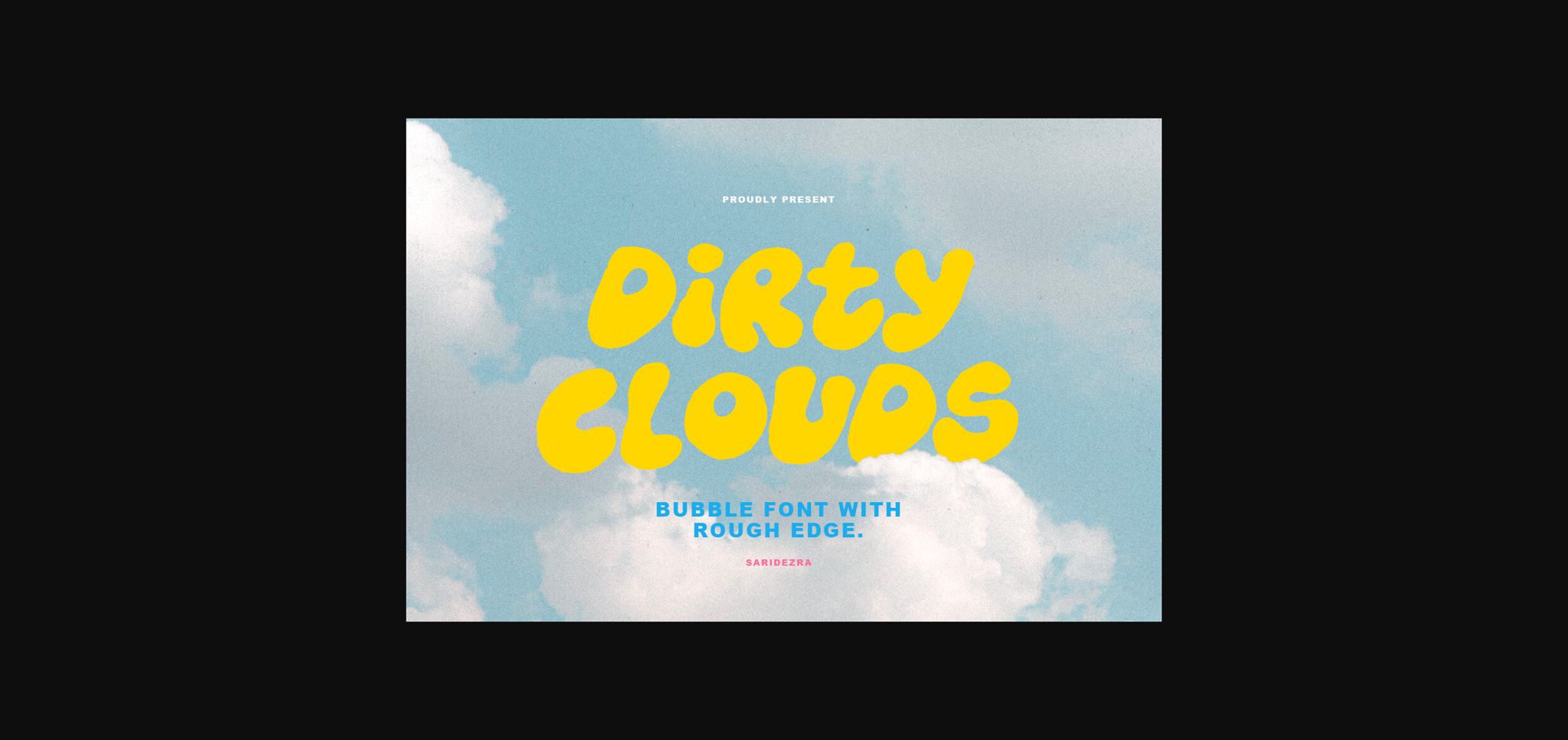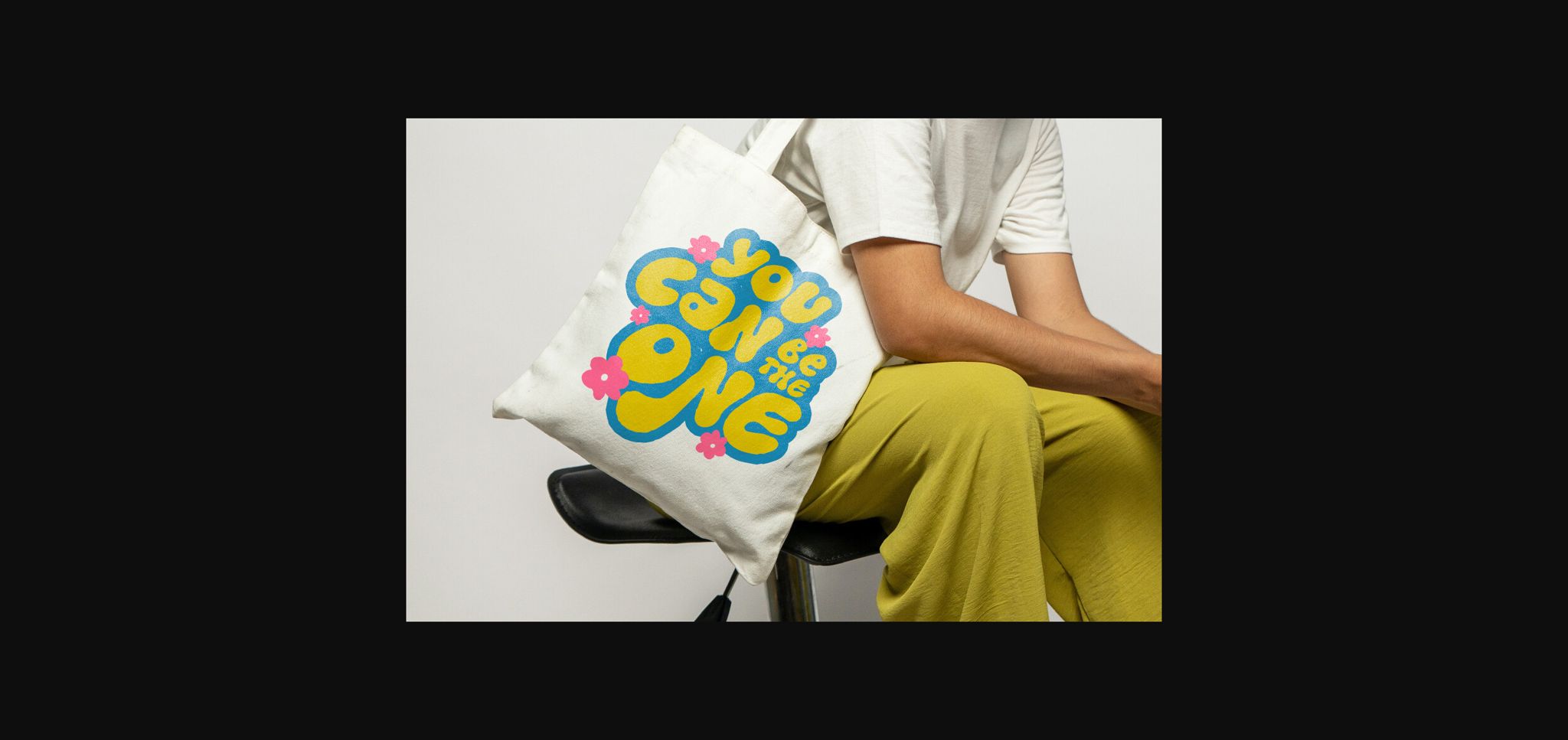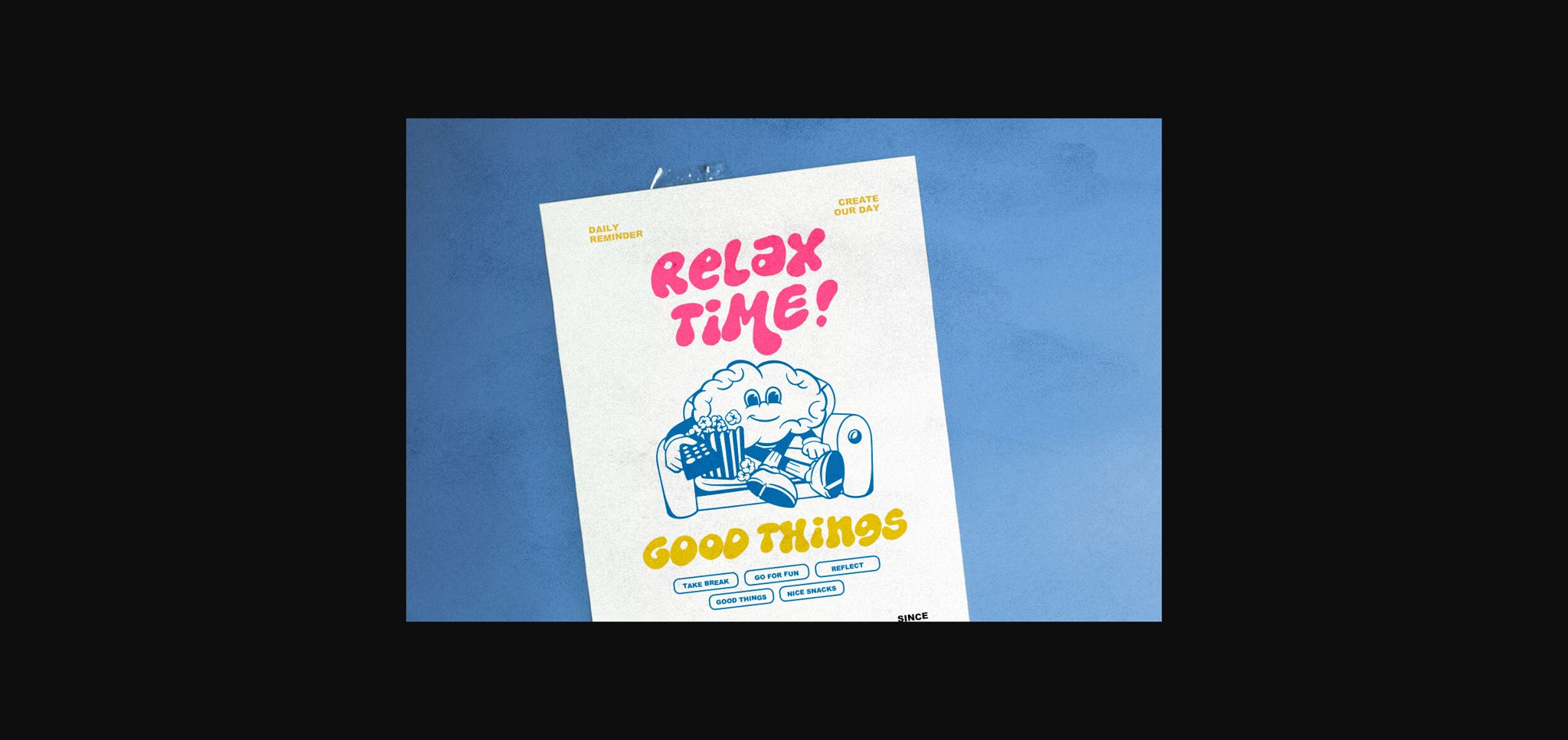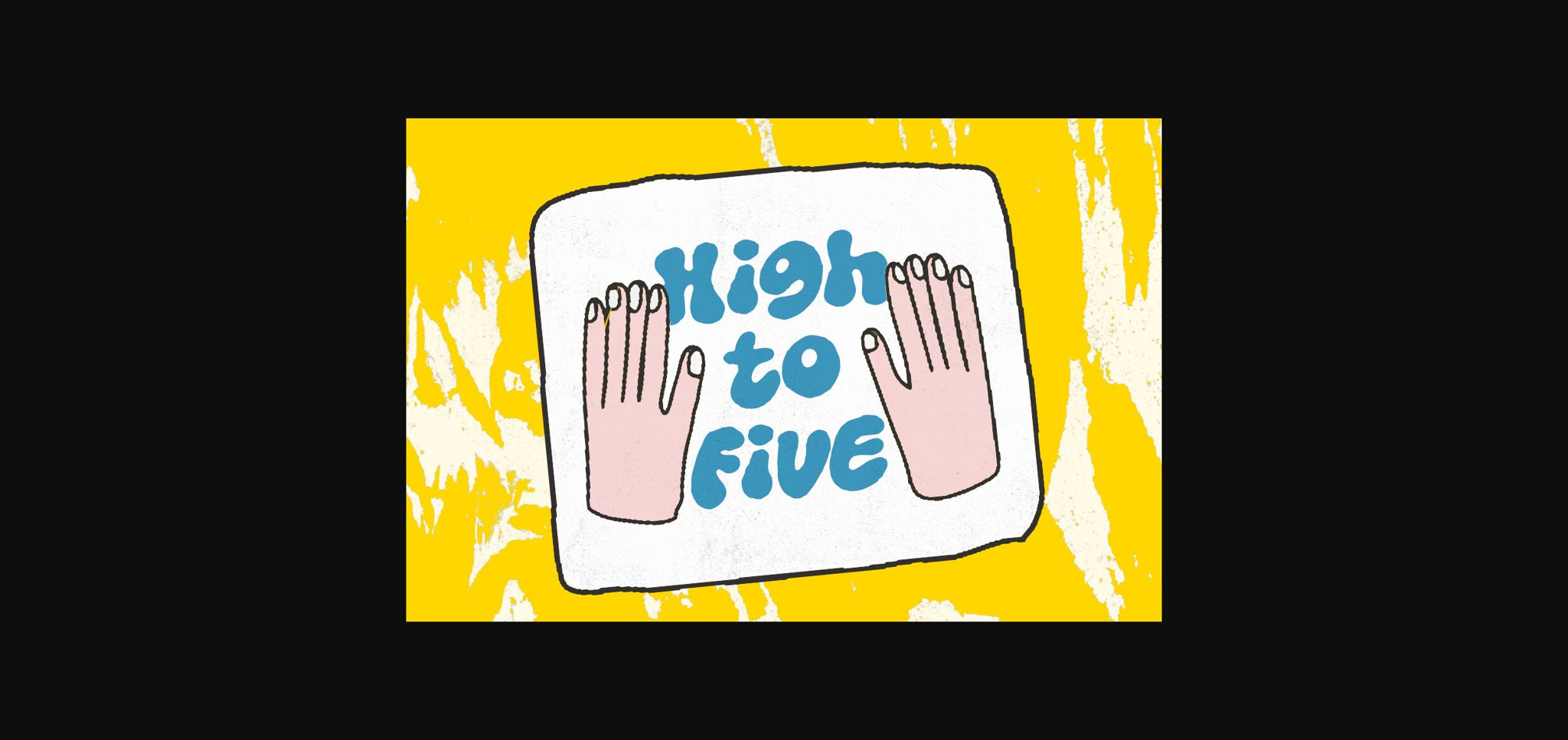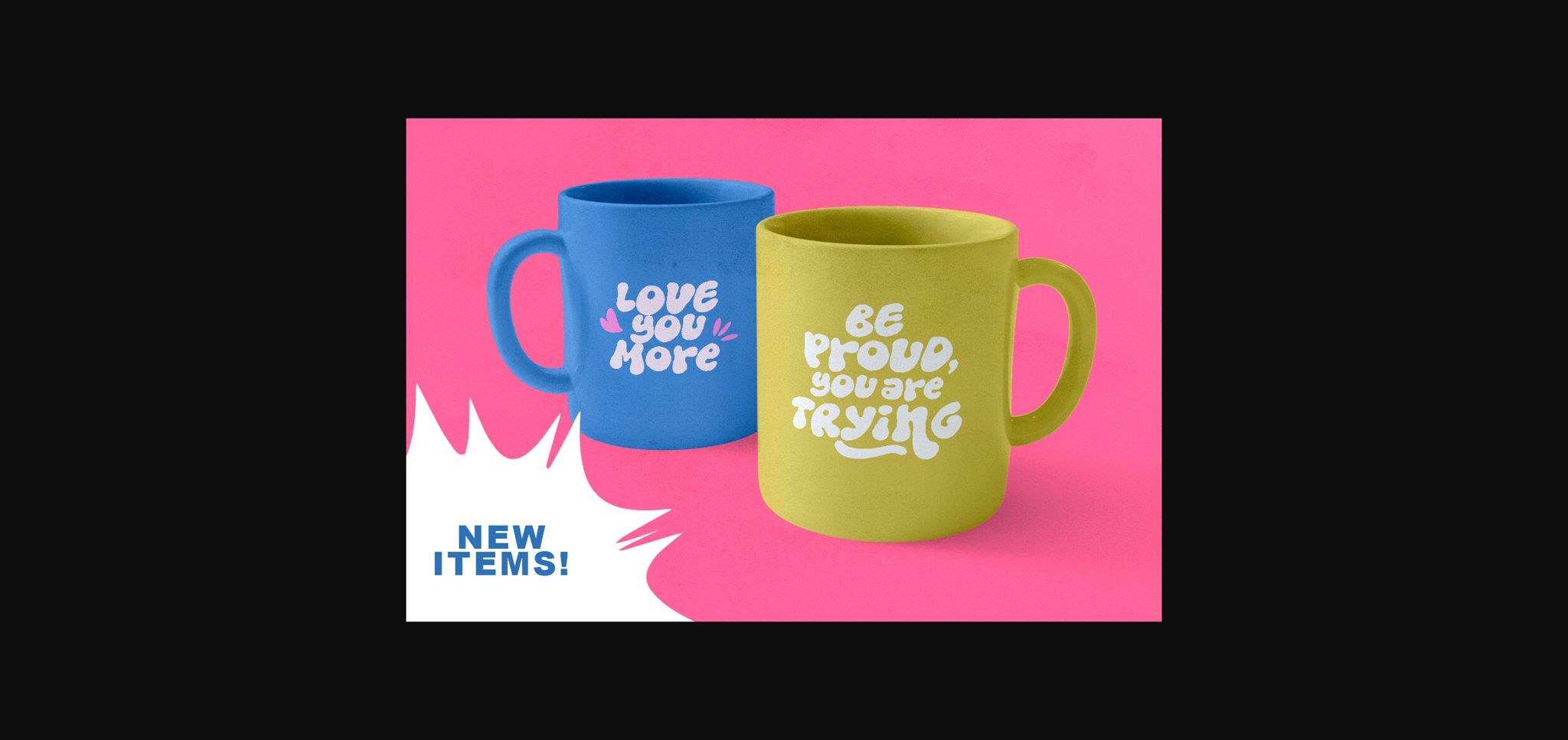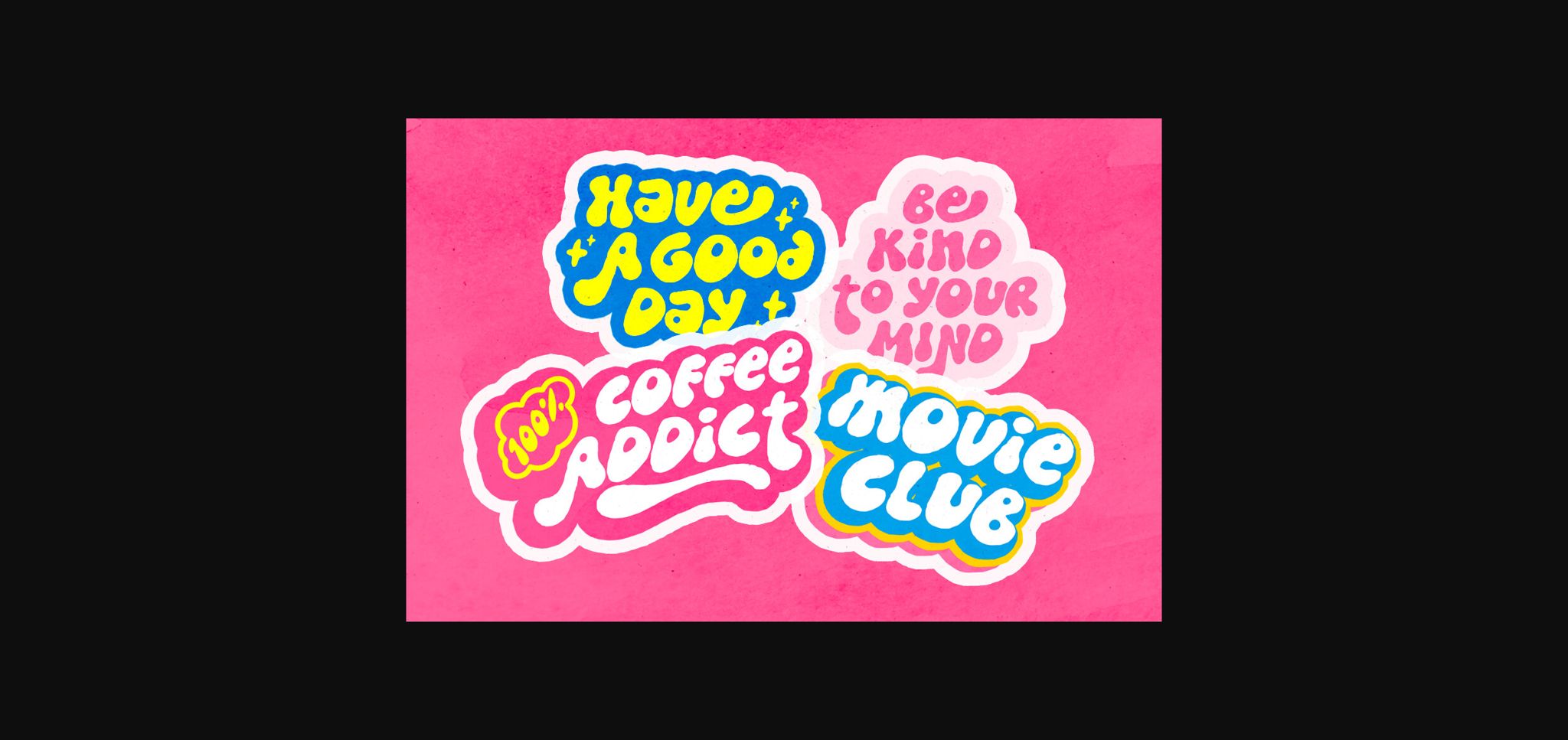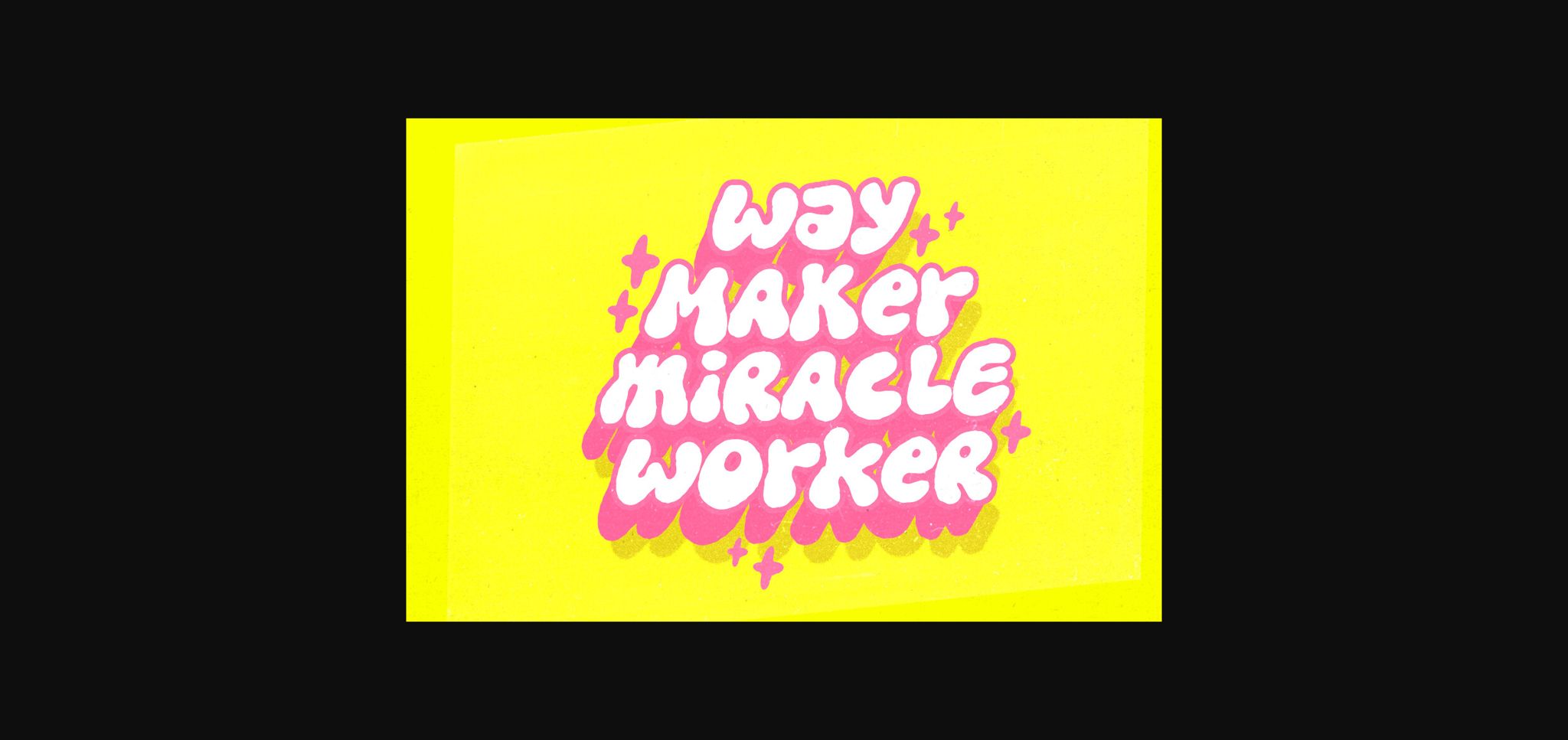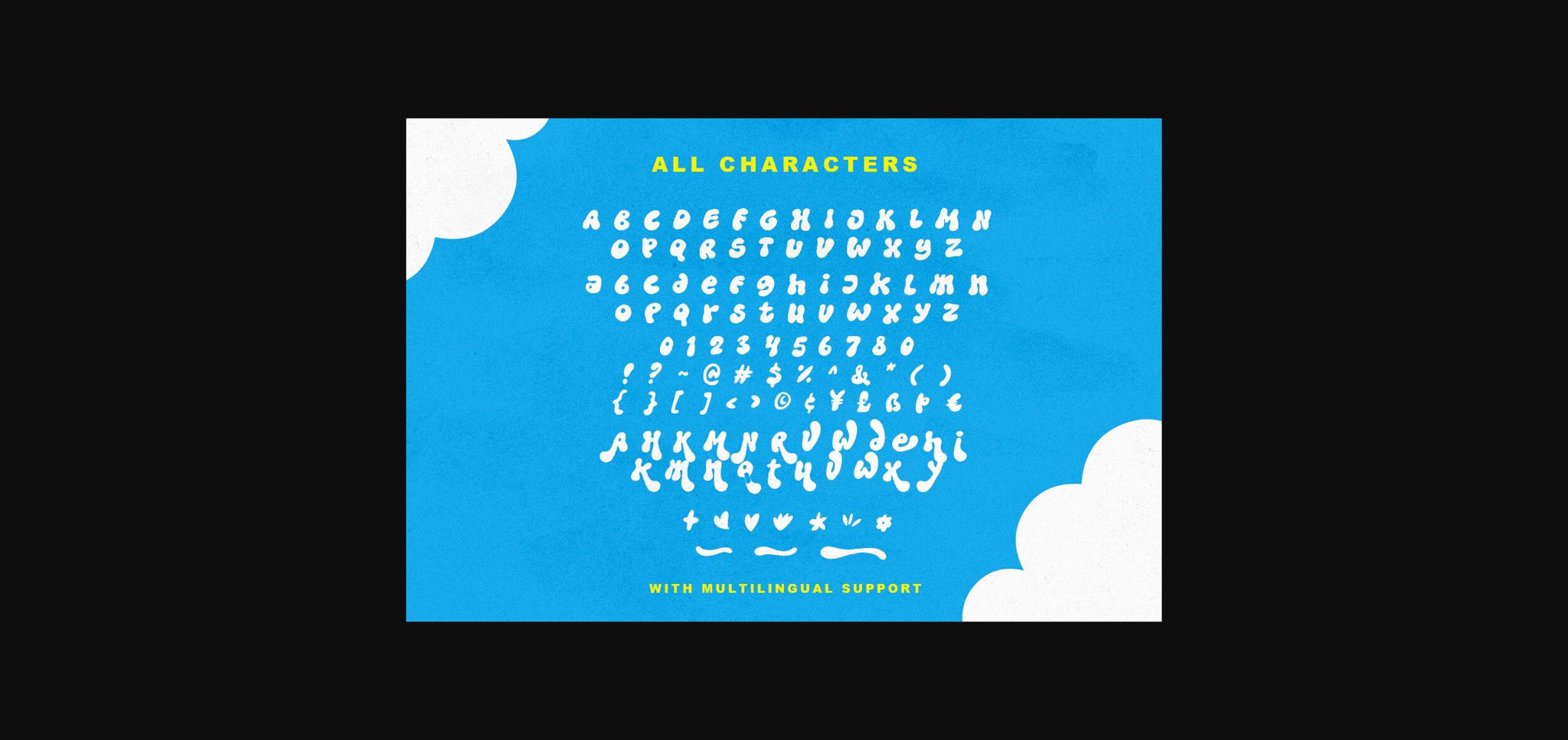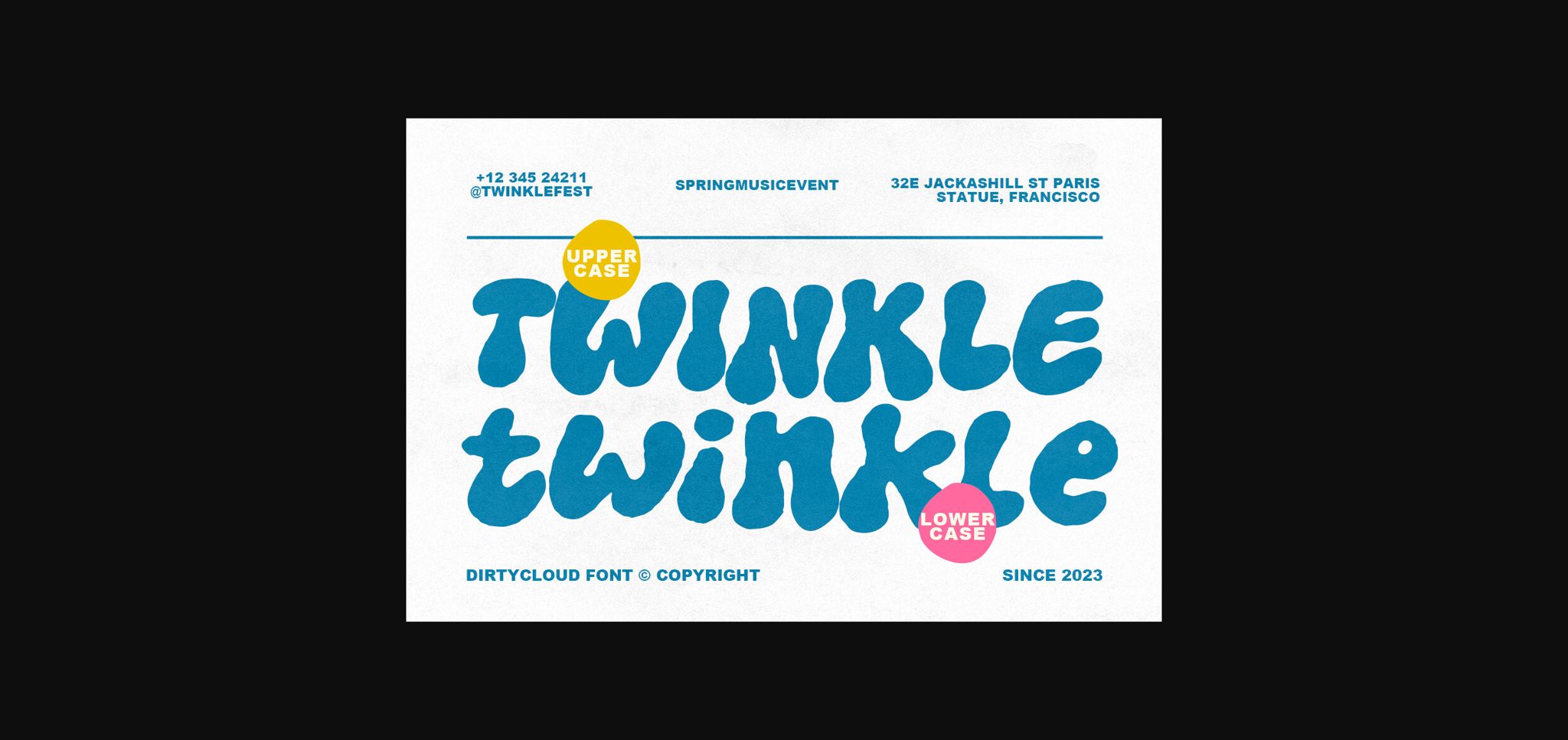
Dirty Clouds Font
About Dirty Clouds Font
Dirty Clouds is a hand drawn bubble font with rough edge. With organic looks, this font will make your design popping yet humanist. You can use this font for any purposes, such as poster, sticker, quotes or even for your branding. With different lowercase and uppercase, you can use both at the same time in a word to make your project looks more handmade. The special things about this font is, there is a bunch of alternates that you can use. Also, this font included some icons and underline that you can access from glyphs panel in your software design. Dirty Clouds also support multi language!